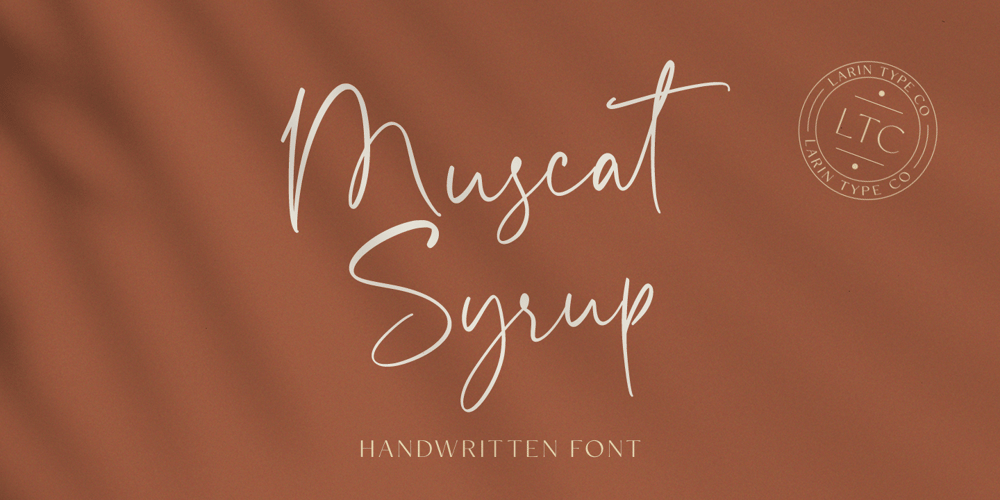
Muscat Syrup Font Family was designed by Pavel Larin and published by Larin Type Co. Muscat Syrup contains 1 styles and family package options. Muscat Syrup this amazing handwritten font is light and elegant, will emphasize your personality in any project and will charm you with its signature. This font includes alternates for Uppercase and Lowercase, also a lot ligatures for lower case make your signature with them. You can use it to create logos, branding, t-shirts, book covers, stationery, marketing, blogs, magazines, cosmetics, signage, and more. This font is easy to use has OpenType features.